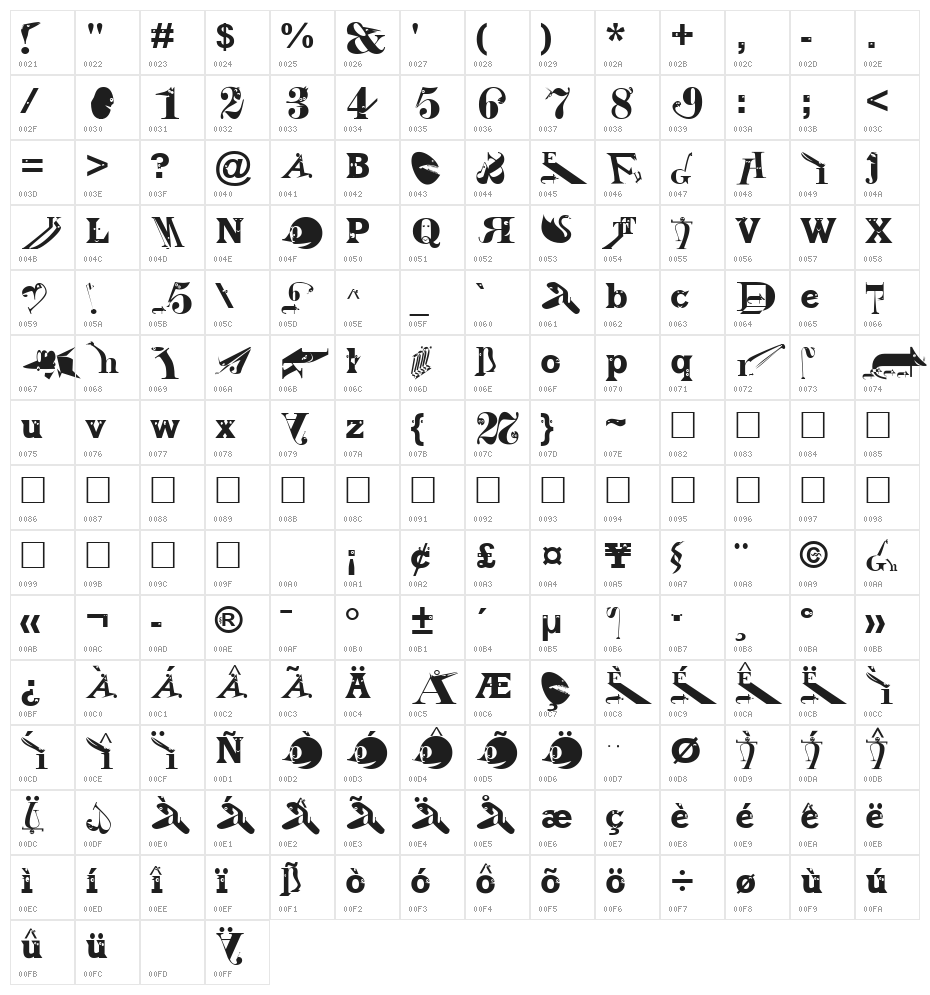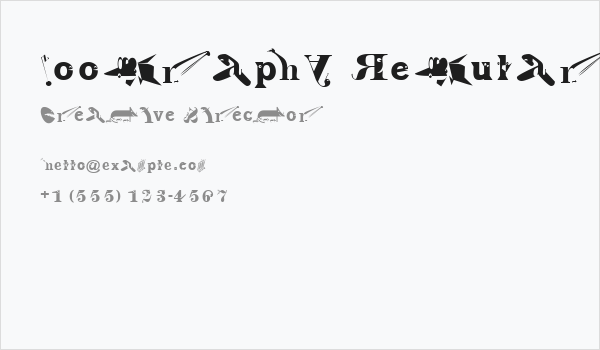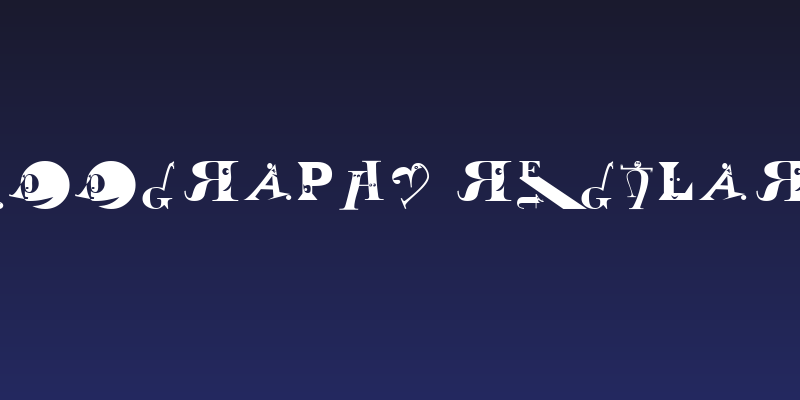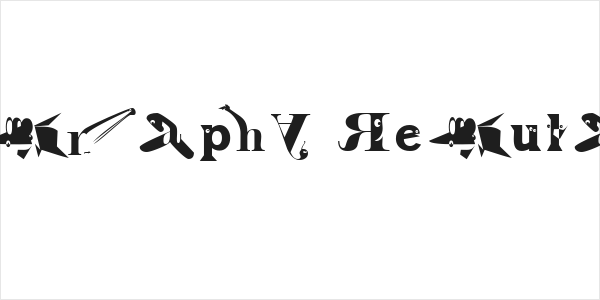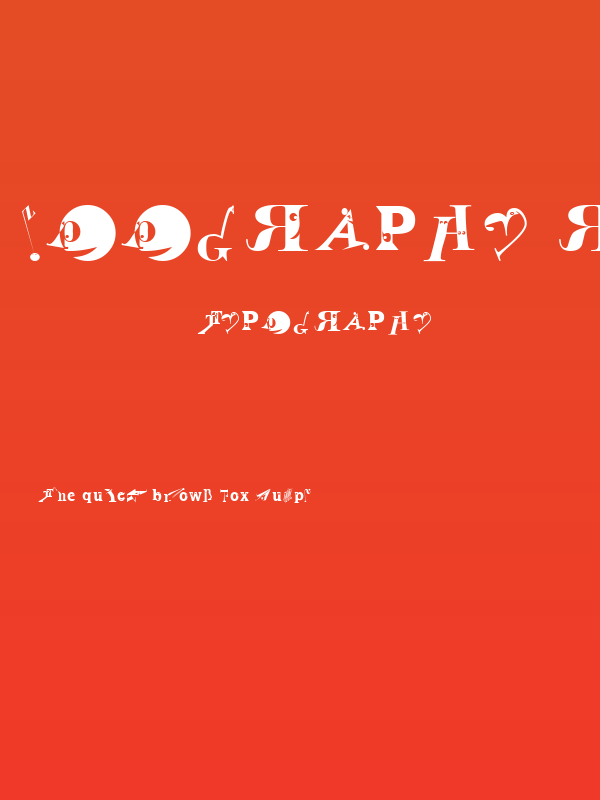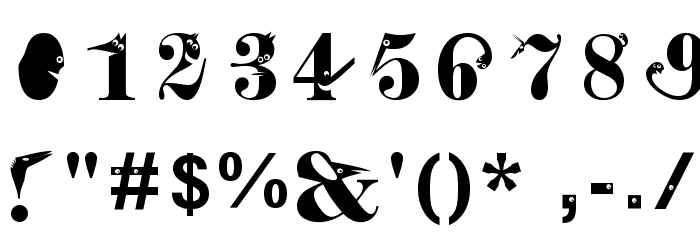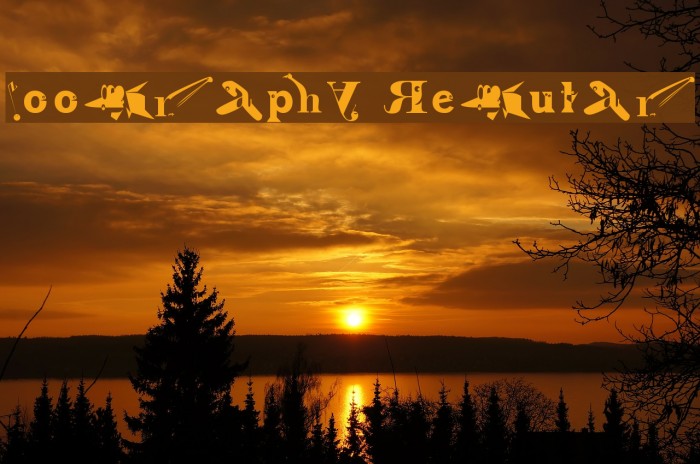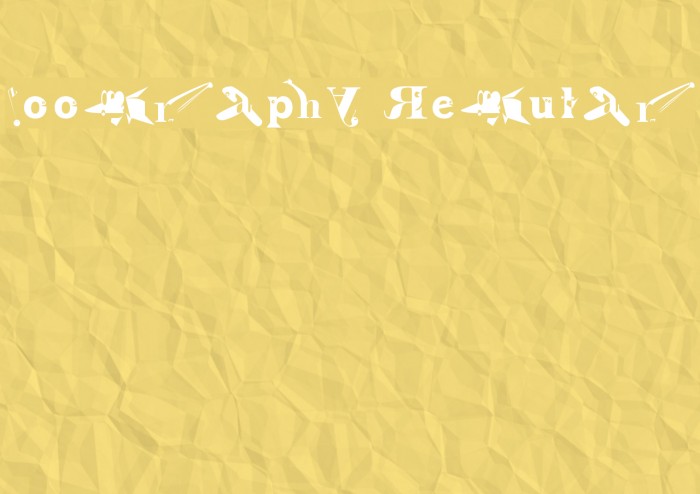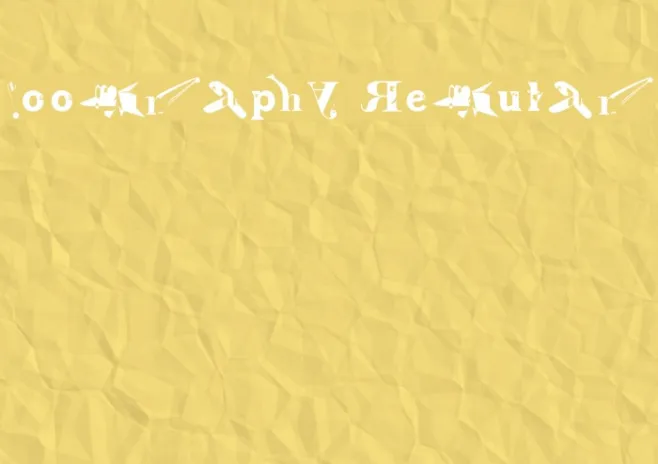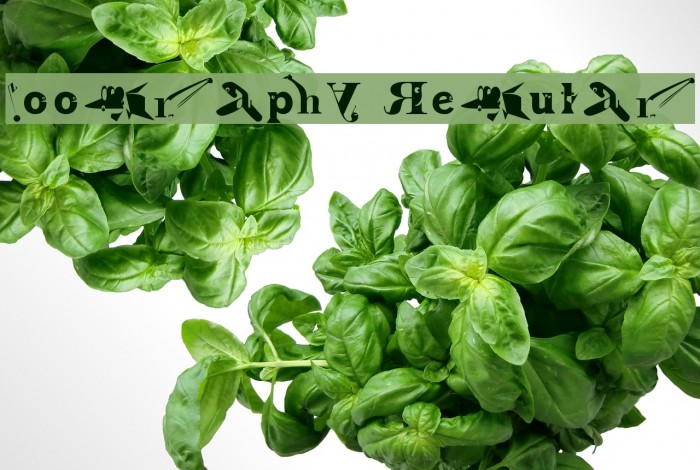
Zoography Regular Font
Zoography Regular Description
This font is a whimsical and creative display typeface that incorporates animal motifs into each character. Each letter and number is uniquely designed to feature elements of various animals, making it a playful and eye-catching choice. The characters are bold and have a decorative style, with intricate details that add a sense of fun and imagination. The font is not suitable for body text due to its complexity but works excellently for headlines, posters, and other creative projects where a unique and artistic touch is desired. The overall style is decorative and modern, with a high contrast in stroke thickness that enhances its visual appeal.
| Proposed Projects | Ideal for children's books, creative posters, playful branding, and artistic projects. |